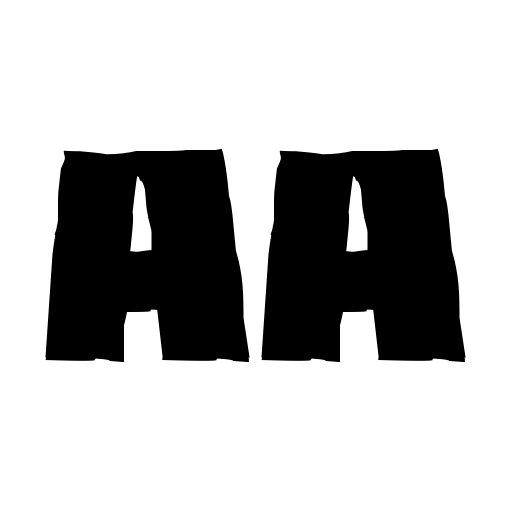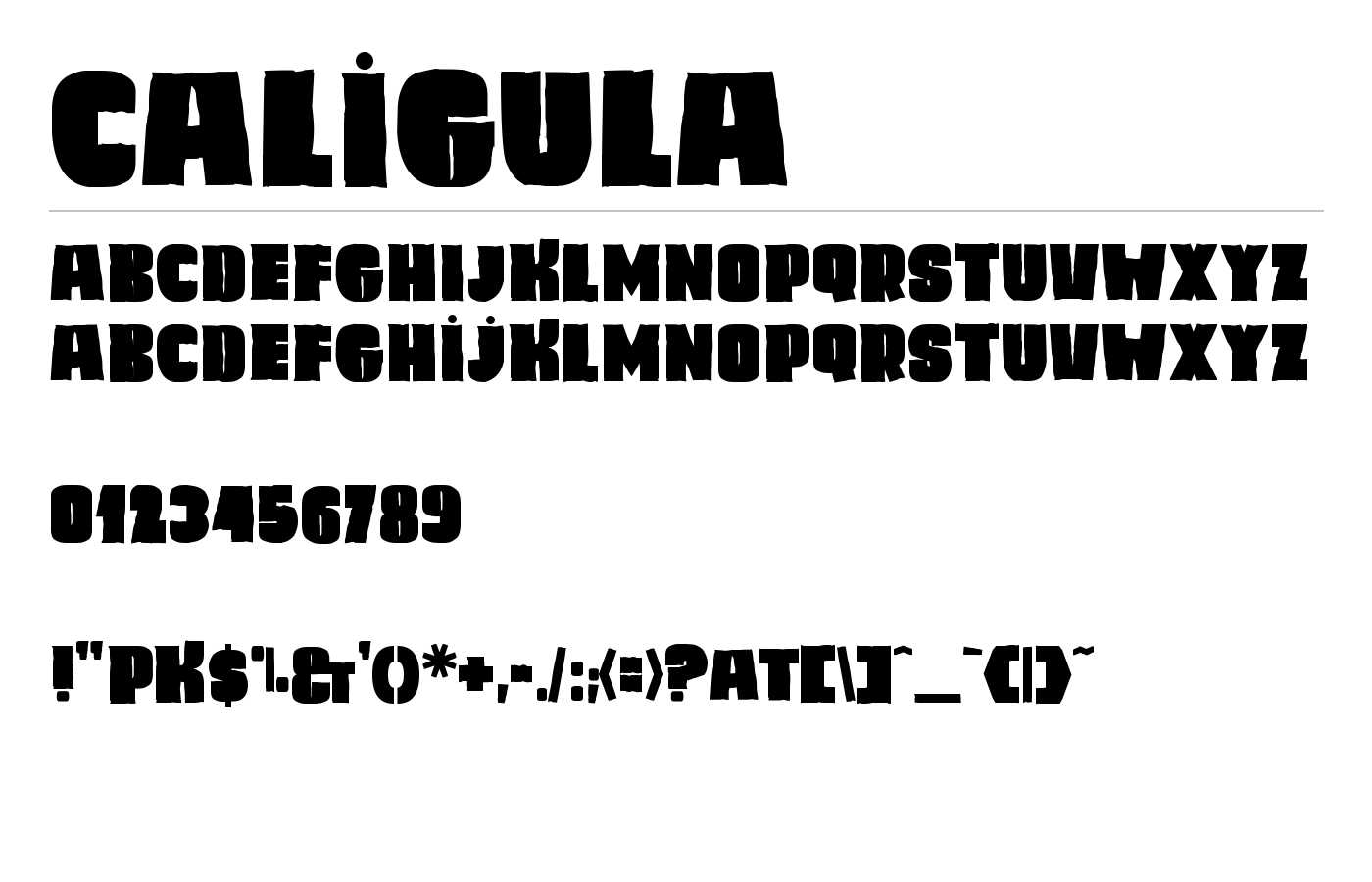
Caligula is a bold, condensed sans serif font with a rough, hand-carved aesthetic that adds a strong, edgy personality to any design. Its heavy weight, irregular edges, and sturdy letterforms make it perfect for creating striking headlines, posters, and branding that demand attention with a rebellious or vintage vibe. This font works well where bold expression and unique character are needed, especially in creative, urban, or alternative contexts.
Caligula Font
About Caligula Font